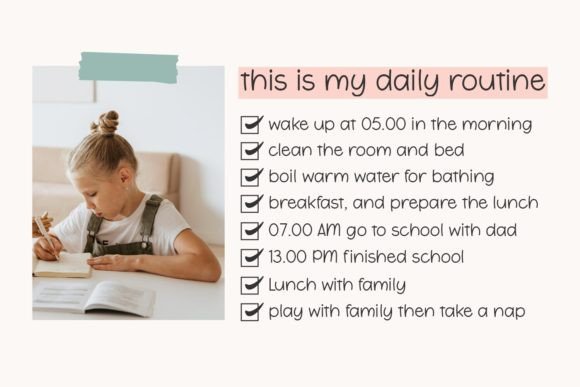
Lucky Father Font
Introducing ‘Lucky Father’, an engaging, whimsically endearing and velvety font harboring unlimited combination potential to pique your creativity. This versatile typeface effortlessly breathes life into displays, infusing them with a playful spirit perfect for eye-catching posters, tasteful logotypes, vibrant stickers, heartwarming greeting cards, charming Father’s Day messages and playful signs for kids. Make your next lettering project an exciting adventure with ‘Lucky Father’.